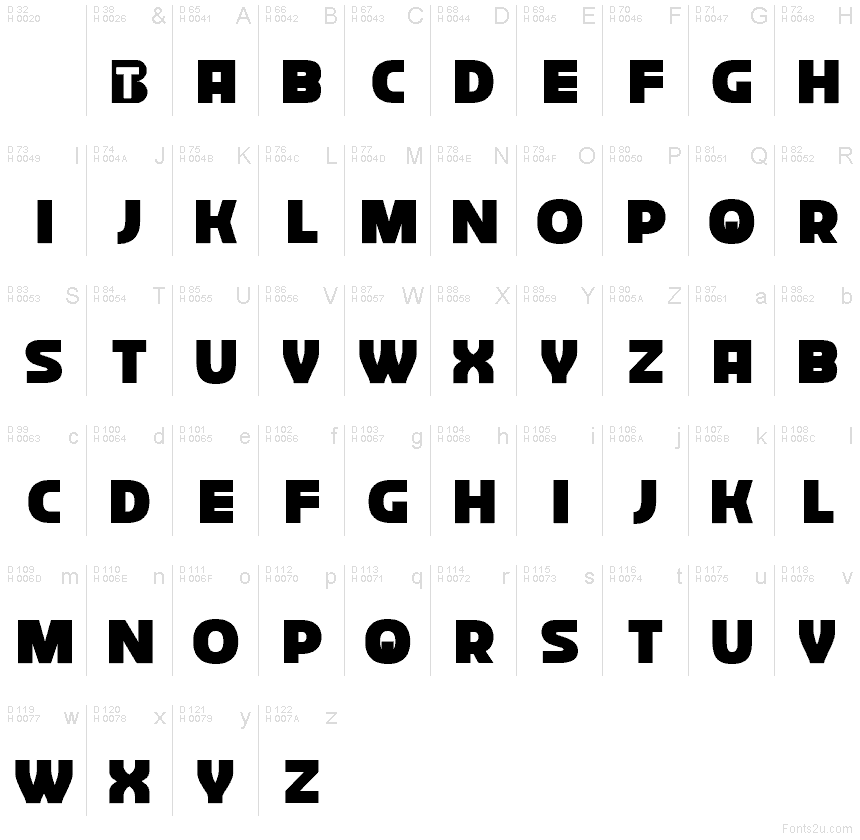
Rudimentar Regular
Rudimentar font is a free sans serif font designed by Leonhard Katschner with a bold and striking style. The blocky, geometric shapes give the characters a modern aesthetic feel along with a strong presence that focuses entirely on enhancing the reader’s vision and comprehension.
Leonhard Katschner